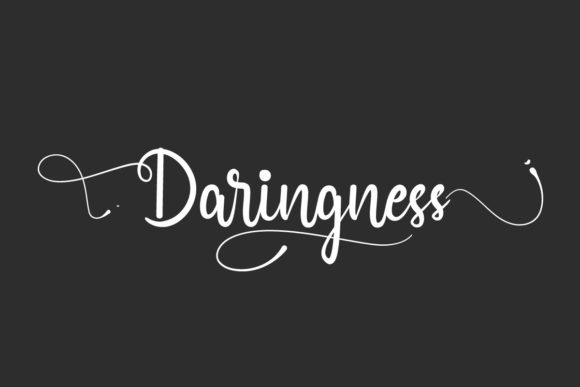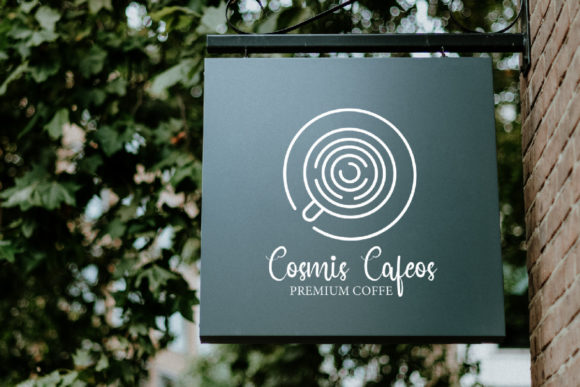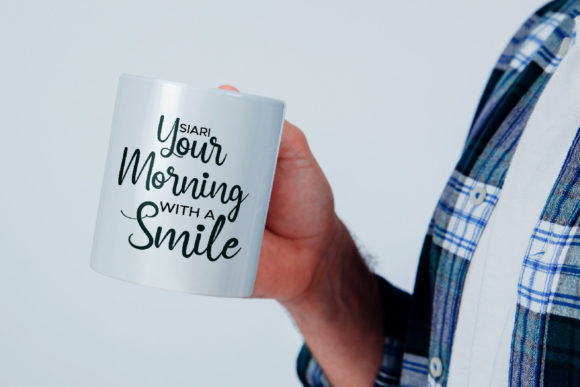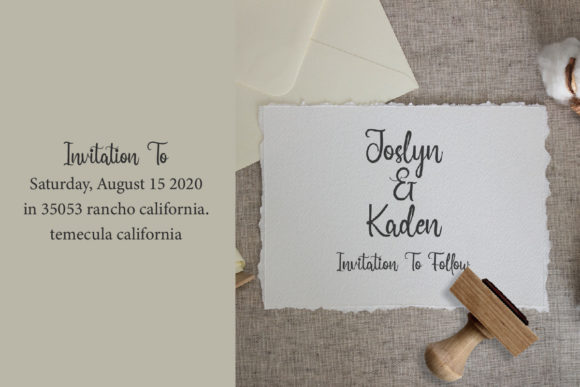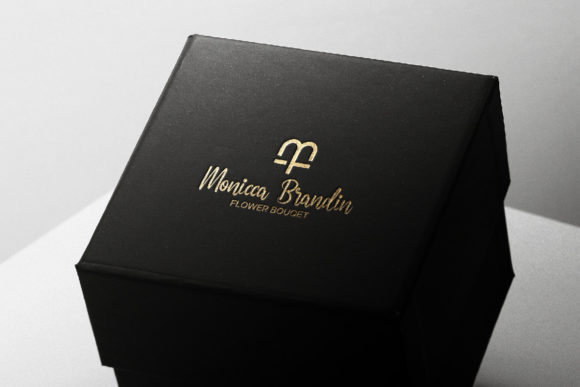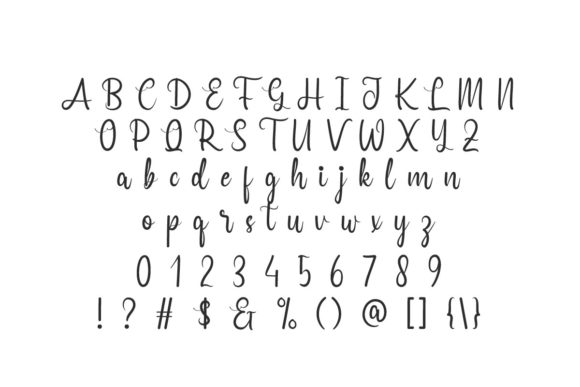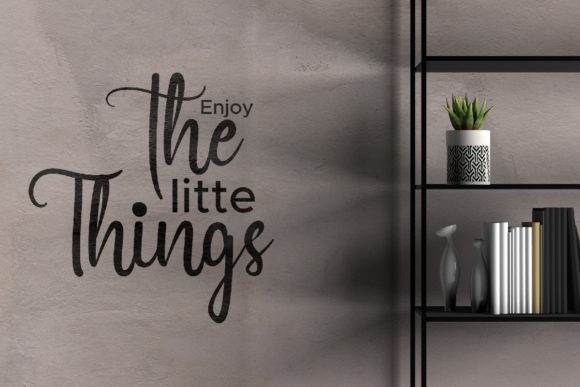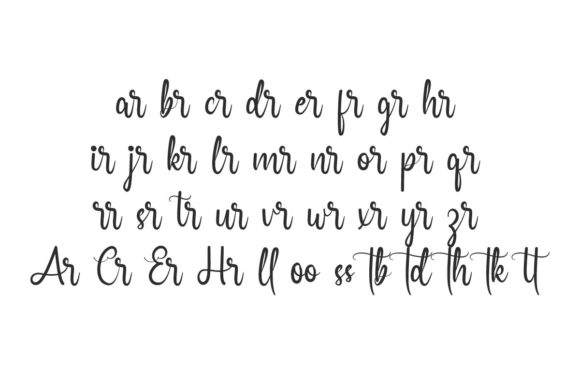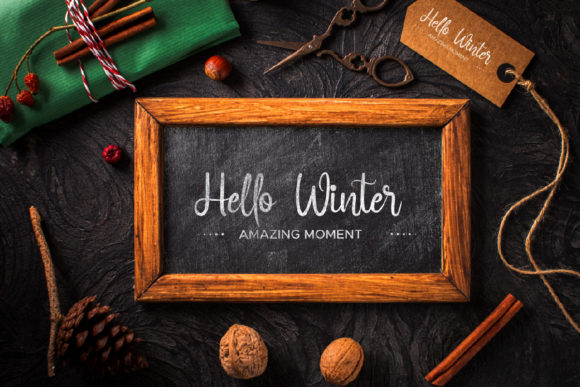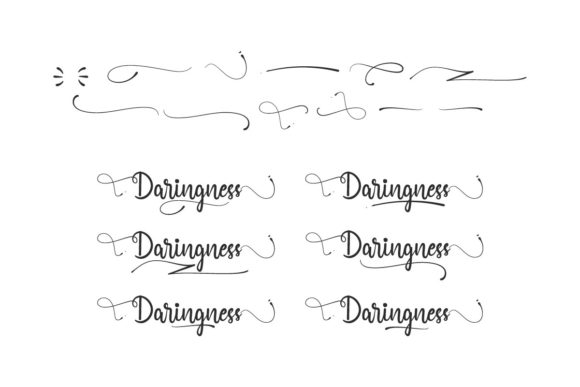
Daringness Font
About Daringness Font
Introducing Daringness: a script font that effortlessly intertwines modern sophistication with timeless elegance, resulting in a spellbinding visual journey. With every stroke, Daringness captivates the eye, inviting viewers into a world where contemporary charm meets the grace of centuries past.
Drawing inspiration from the refined penmanship of Italian women and the intricate beauty of ancient manuscripts, Daringness embodies a harmonious fusion of tradition and innovation. Each meticulously crafted letter exudes a sense of artistic mastery, evoking emotions of wonder and admiration.
Daringness isn’t merely a font—it’s a masterpiece poised to elevate your designs to extraordinary heights. From logos to branding, quotes to products, invitations to stationery, this font transcends boundaries, seamlessly integrating into a myriad of projects with effortless grace.
At the core of Daringness lies its PUA encoding, granting users access to an extensive array of glyphs and swashes. This feature empowers designers to infuse their creations with unique personality and flair, breathing life into every design element with unparalleled ease.
But Daringness offers more than just aesthetic appeal; it’s also a beacon of practicality and reliability. Its legible letterforms ensure clarity and readability across diverse mediums and sizes, making it a versatile choice for projects of any scale or scope. Whether crafting a sleek logo for a modern brand or designing an elegant invitation for a special occasion, Daringness delivers unparalleled excellence with every character.
Moreover, Daringness embodies a spirit of adaptability and versatility, effortlessly transitioning between different design contexts with seamless precision. Its ability to effortlessly blend into various projects—from digital platforms to printed materials—makes it an indispensable tool for designers seeking to make a lasting impression.
Furthermore, Daringness exudes an air of sophistication that transcends cultural and linguistic boundaries. Its universal appeal and comprehensive language support ensure that it resonates with audiences around the globe, regardless of their native tongue.
In conclusion, Daringness stands as a testament to the power of script fonts to evoke emotion, inspire creativity, and elevate design to new heights. With its exquisite craftsmanship, timeless charm, and practical functionality, Daringness is more than just a font—it’s a masterpiece waiting to transform your designs into works of art. Embrace Daringness today and embark on a journey of limitless creativity and boundless imagination.